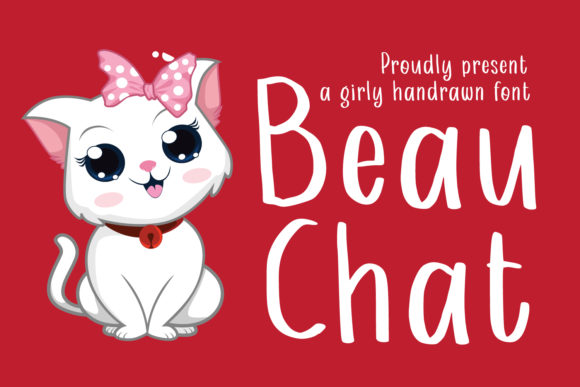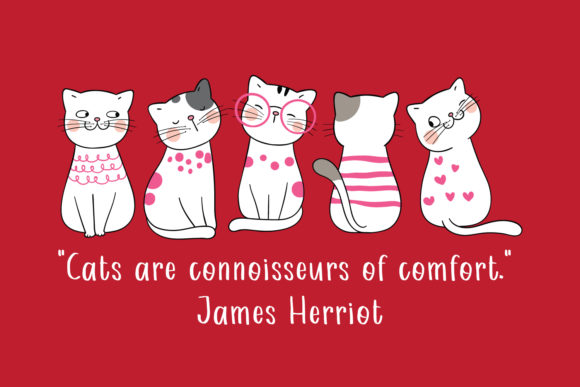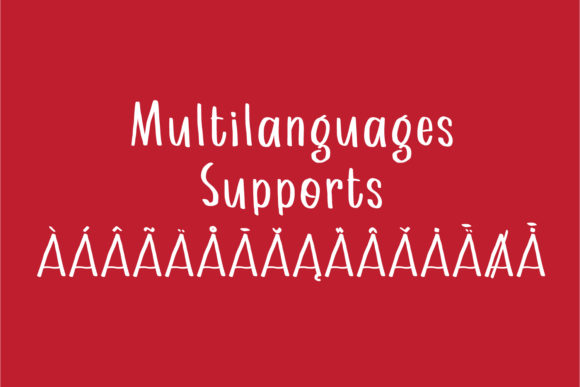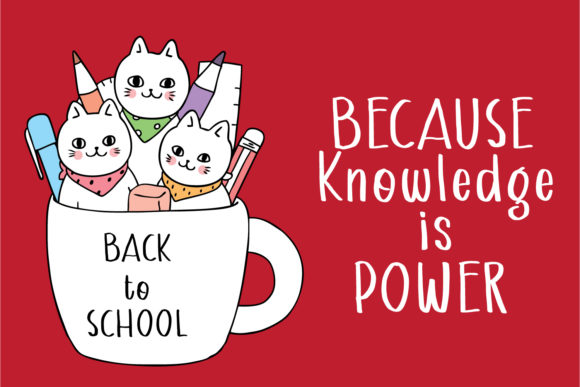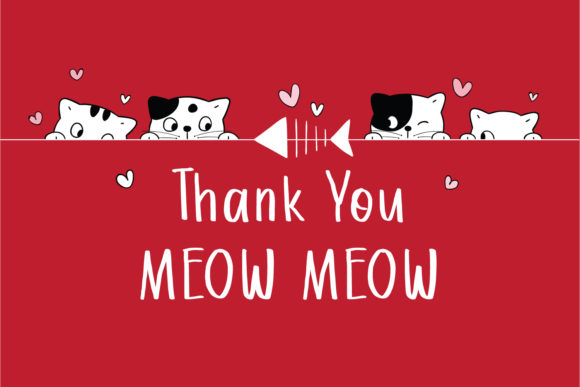
HomeScript FontsBeau Chat Font Script Fonts Beau Chat Font FacebookXPinterestWhatsApp Beau Chat Font Poster 2 Beau Chat Font Poster 3 Beau Chat Font Poster 4 Beau Chat Font Poster 5 About Beau Chat Font Beau Chat is a sweet handwritten font. Use this gorgeous and unique font to bring any DIY project to life! DOWNLOAD NOW People also explored Cacophonia Font Quary Font Monica Garden Font Baby Cute Font Virgi Theory Font Snickometer Font Pancake Font Entertainment Font Webcomic Font 288 0 TagsBeau Chat Font Previous articleNightype FontNext articleHelsi Font LEAVE A REPLY Cancel reply Comment: Please enter your comment! Name:* Please enter your name here Email:* You have entered an incorrect email address! Please enter your email address here Website: Save my name, email, and website in this browser for the next time I comment. Personal Use Free Hello Sarrah Personal Use Free Read more about this font Planning Personal Use Free Read more about this font Amillina Monogram Personal Use Free Read more about this font Eva Personal Use Free Read more about this font BLOG Exploring Font Trends Shaping Communication in the Digital Era Fonts, like all design elements, are subject to trends. They play a crucial role in communicating a brand's personality,... Free Fonts Risk: Why Free Fonts Can Be Dangerous for Designers Best Fonts for YouTube Videos: Make Your Thumbnails Stand Out To increase your work productivity, choose the most readable fonts.